Font Size, Weight, and Style — Mastering Typography for a Polished Look
When it comes to web design, typography is more than just picking a nice font. The way you manipulate font size, font weight, and font style can significantly impact your site’s readability, aesthetics, and overall user experience. These properties give you control over how text appears on your website, ensuring that your content is not only readable but visually appealing.
In today’s post, we’ll walk through how to use font size, weight, and style in CSS to create beautiful, functional text. Whether you’re designing a blog, portfolio, or business site, these properties are essential tools in your web development toolbox.
1. What Are Font Size, Weight, and Style?
Before diving into the specifics, let’s get a quick refresher on what each of these CSS properties does:
- Font Size: Controls the size of the text.
- Font Weight: Determines the thickness or boldness of the text.
- Font Style: Defines the style of the font, such as italics or normal.
These three properties may seem simple, but when combined effectively, they can completely transform the look and feel of your typography. Let’s explore each of them in detail.
2. Font Size: The Power of Proper Sizing
2.1 Setting Font Size
In CSS, the font-size property allows you to control the size of your text. You can use several different units to specify the size, including px, em, %, rem, and vw.
Here’s the basic syntax for font-size:
font-size: 16px;
This would set the text size to 16 pixels.
2.2 Units of Font Size
Pixels (px): A fixed-size unit that specifies the font size in terms of pixels. It’s great for precise control, but may not be as flexible for responsive design.
Example: font-size: 18px;
Ems (em): A relative unit based on the font size of the parent element. This makes em great for scalable and responsive typography. 1em is equivalent to the current font size.
Example: font-size: 2em; (twice the size of the parent element's font)
Rems (rem): Similar to em, but relative to the root element (<html>), making it more predictable across the entire page.
Example: font-size: 1.5rem; (1.5 times the root element's font size)
Percentage (%): Specifies the font size as a percentage of the parent element’s font size.
Example: font-size: 120%; (120% of the parent font size)
Viewport Width (vw): A relative unit that is based on the width of the viewport. Great for responsive typography, especially on large screens.
Example: font-size: 5vw; (5% of the viewport width)
2.3 Why Proper Font Sizing Matters
Proper font sizing is critical for readability. Too small a font size makes text hard to read, while too large can cause overcrowding and overwhelm the user.
For body text, using rem or em is ideal because they scale well with the root or parent font size.
For headings, px can be great when you need precise control over the size, but you might consider using relative units to keep your typography scalable on different devices.
Example:
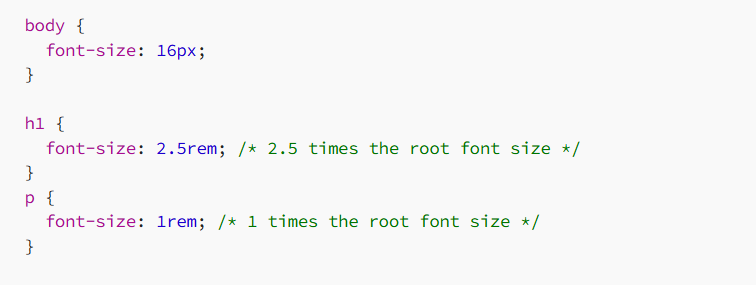
By using rem for headings and rem for paragraphs, the text will scale appropriately based on the root font size, which is better for accessibility and responsive design.
3. Font Weight: Bold, Light, or Somewhere In-Between?
The font-weight property allows you to adjust the thickness of your text. Whether you want bold headlines or subtle text, controlling the font weight is key to achieving the right tone.
3.1 Setting Font Weight
The basic syntax for font weight is as follows:
3.2 Common Values for Font Weight
normal (400): The standard weight for most fonts.
bold (700): Makes the text bold.
Numeric Values (100 to 900): Some fonts offer more than just normal and bold. You can use numbers to fine-tune the font weight, where 100 is the lightest and 900 is the boldest.
Example: font-weight: 300; (light)
Example: font-weight: 900; (extra bold)
Not all fonts support every numeric value, so it’s important to check the documentation or preview the weight before using it.
3.3 Using Font Weight for Impact
Font weight can dramatically affect the perception of your website. Bolder fonts can make headings and important calls to action stand out, while lighter fonts can be used for body text to give a clean and airy look.
Headings: Typically, headings should use a bold or extra bold weight to ensure they stand out.
Body Text: Use a normal or light weight for readability. Lighter weights can create a more elegant, minimalistic look, while normal weight is more classic and highly readable.
Example:
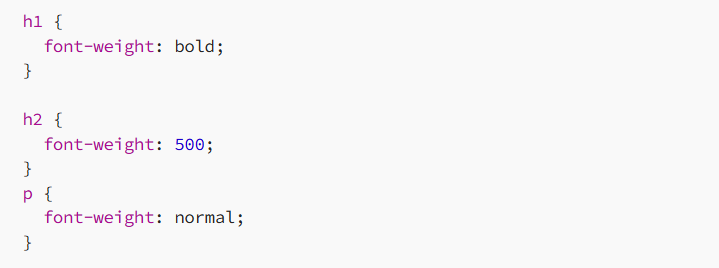
Here, the h1 is bold, the h2 is medium weight (500), and the paragraph text is set to the normal weight.
4. Font Style: Slanted, Upright, and More
The font-style property allows you to control whether your text is italicized, normal, or oblique. This can be useful for emphasis or adding some personality to your typography.
4.1 Setting Font Style
4.2 Common Values for Font Style
normal: The default style (upright text).
italic: Italicizes the text, making it appear slanted.
oblique: Similar to italic, but the slant is usually less pronounced. Not all fonts have a specific oblique style, so browsers simulate it.
4.3 When to Use Font Style
Italic: Use italics for emphasis, quotes, or citations. It’s also used for some stylistic effects in body text and headings.
Oblique: Use this sparingly. Since oblique styles are less common, they should be used only when necessary for a particular design effect.
Normal: Use for regular text to ensure clarity and legibility.
Example:
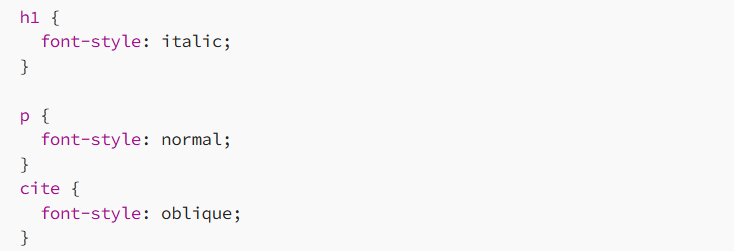
In this example:
- The h1 tag is italicized for emphasis.
- The paragraph text is normal (standard).
- The cite tag is slanted (oblique) for proper citation formatting.
5. Combining Font Size, Weight, and Style
Now that we’ve covered each of these properties individually, let’s see how they can work together to create dynamic typography.
5.1 Example 1: Creating a Bold, Large Heading with Italic Subheading
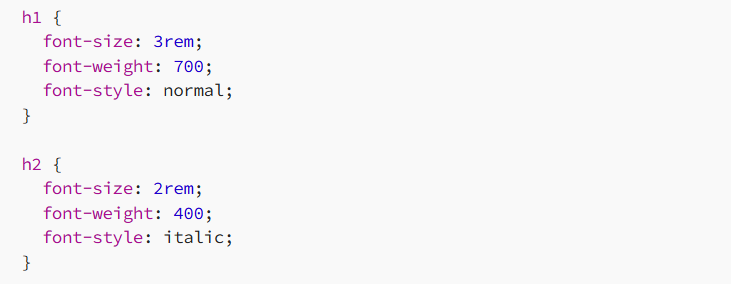
In this case, the h1 is bold and large, while the h2 is italicized but smaller in size and lighter in weight.
5.2 Example 2: Styling Body Text with Light Font Weight
The body text here is set to a light weight, giving it an elegant and airy look. You can always adjust the weight based on the type of content you’re presenting.
5.3 Example 3: Making Links Stand Out with Bold and Larger Size
Links are given a bolder and slightly larger font to make them stand out and encourage interaction.
6. Best Practices for Font Size, Weight, and Style
To ensure your typography looks great and is highly readable, here are a few best practices:
6.1 Maintain Consistency
Make sure your headings, paragraphs, and other text elements follow a clear, consistent typographic hierarchy. This will make your content easier to scan and more aesthetically pleasing.
6.2 Don’t Overdo Bold and Italics
While bold and italics are great for emphasis, overusing them can make your design feel chaotic. Use them sparingly to highlight key points or important elements.
6.3 Be Mindful of Accessibility
Make sure your text is legible for all users. Avoid using fonts that are too small or too light, especially for body text. Good contrast between text and background is key for readability.
6.4 Test Your Typography
Different fonts, sizes, and weights may look different on various devices and screen resolutions. Always test your typography on mobile and desktop devices to ensure it looks good across the board.
7. Conclusion: Typography that Speaks Volumes
By mastering font size, font weight, and font style, you gain greater control over the visual tone and readability of your website. Typography isn’t just about making text look pretty — it’s about creating a comfortable, accessible, and engaging experience for your users.
So whether you’re designing a sleek modern site or a more traditional one, remember: small tweaks to size, weight, and style can make a big difference.
Happy coding, and don’t forget — typography is your design’s voice. Make it count!